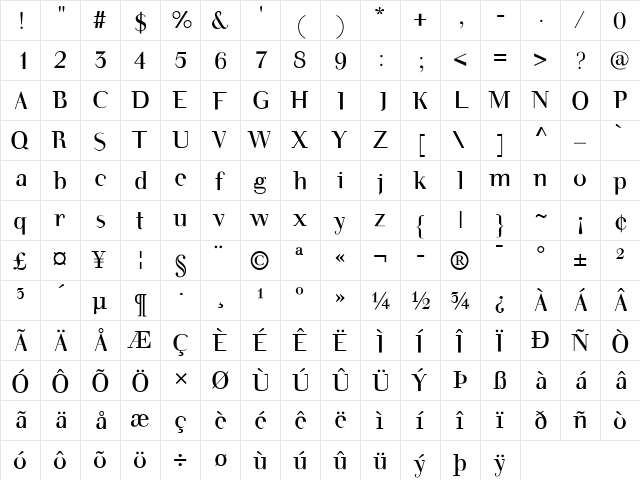
OneIoda Medium Font Preview
OneIoda Medium
Design Context for OneIoda Typeface
OneIoda offers clean, dependable letterforms without strong stylistic allegiance, making it a practical choice for designers who need flexibility.
Pro Tip: Use OneIoda in both headline and body roles to test its range before committing to a single application.